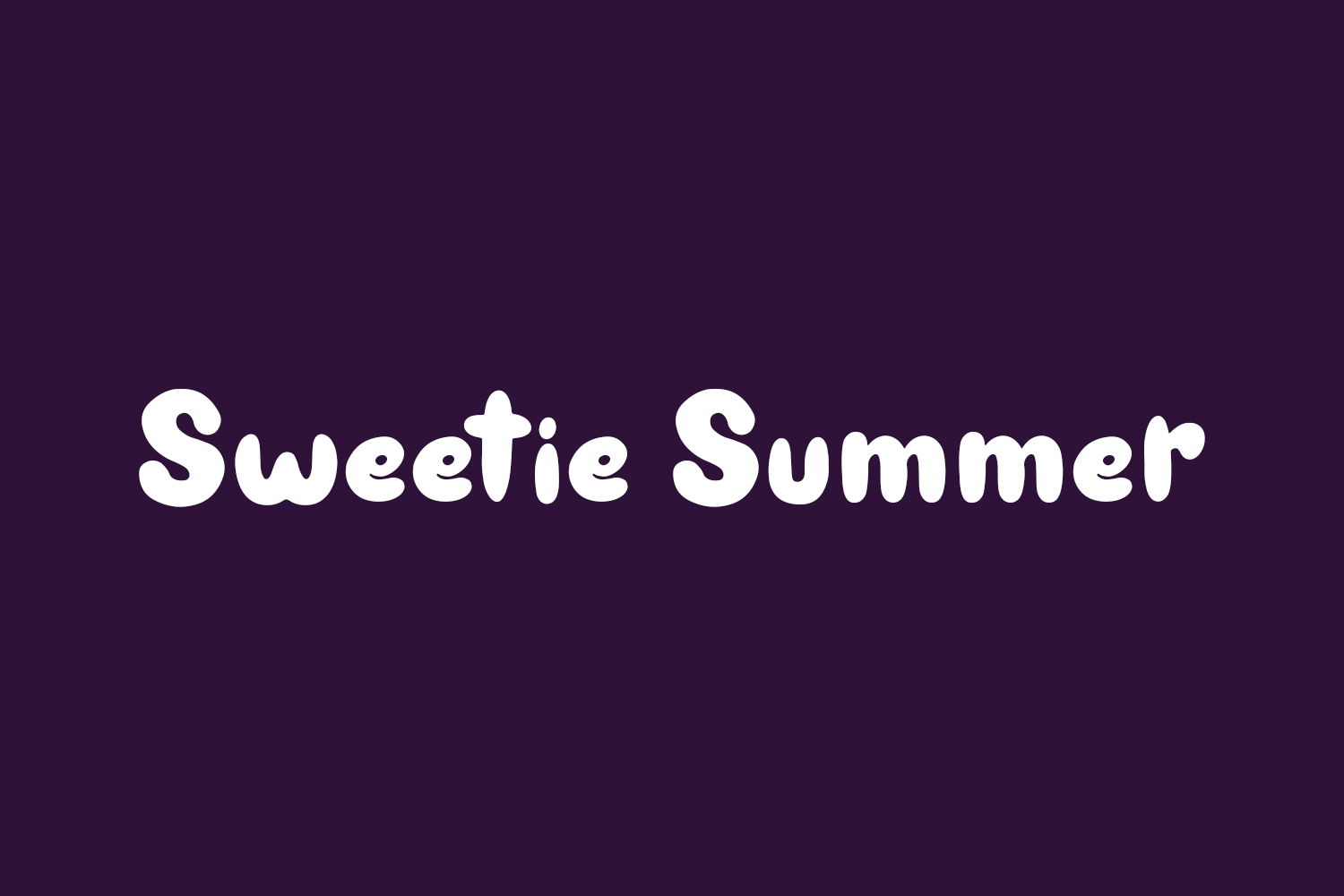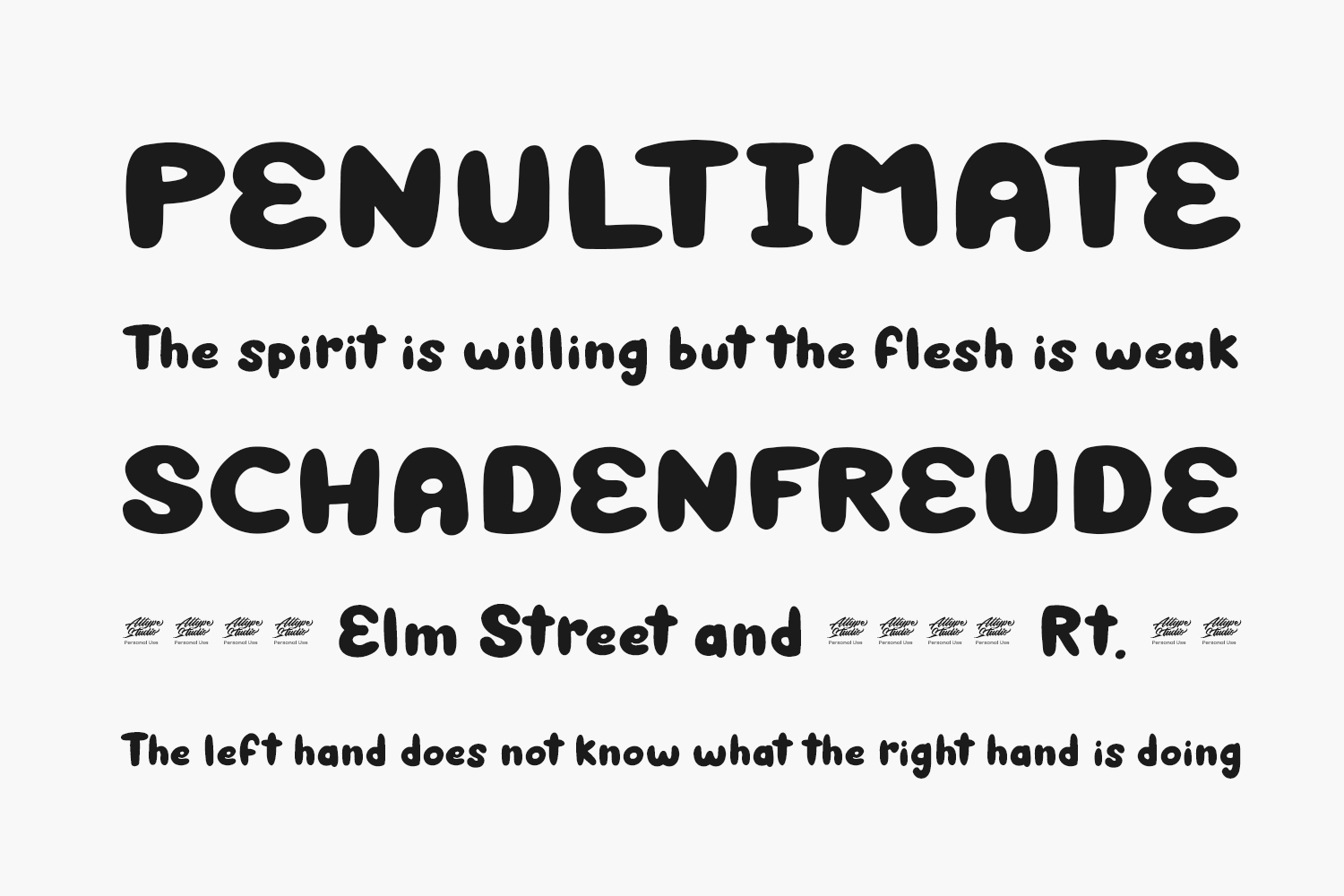
Sweetie Summer Free Font Family is a cool and fun decorative font. It embodies playfulness and authenticity and is the perfect choice for any children’s activity or school project. Sweetie Summer Free Font Family was designed by Attype Studio is a demo and free for personal use only. Please purchase the full version for commercial use.
Sweetie Summer Regular The quick brown fox jumps over the lazy dog
Sweetie Summer Display The quick brown fox jumps over the lazy dog